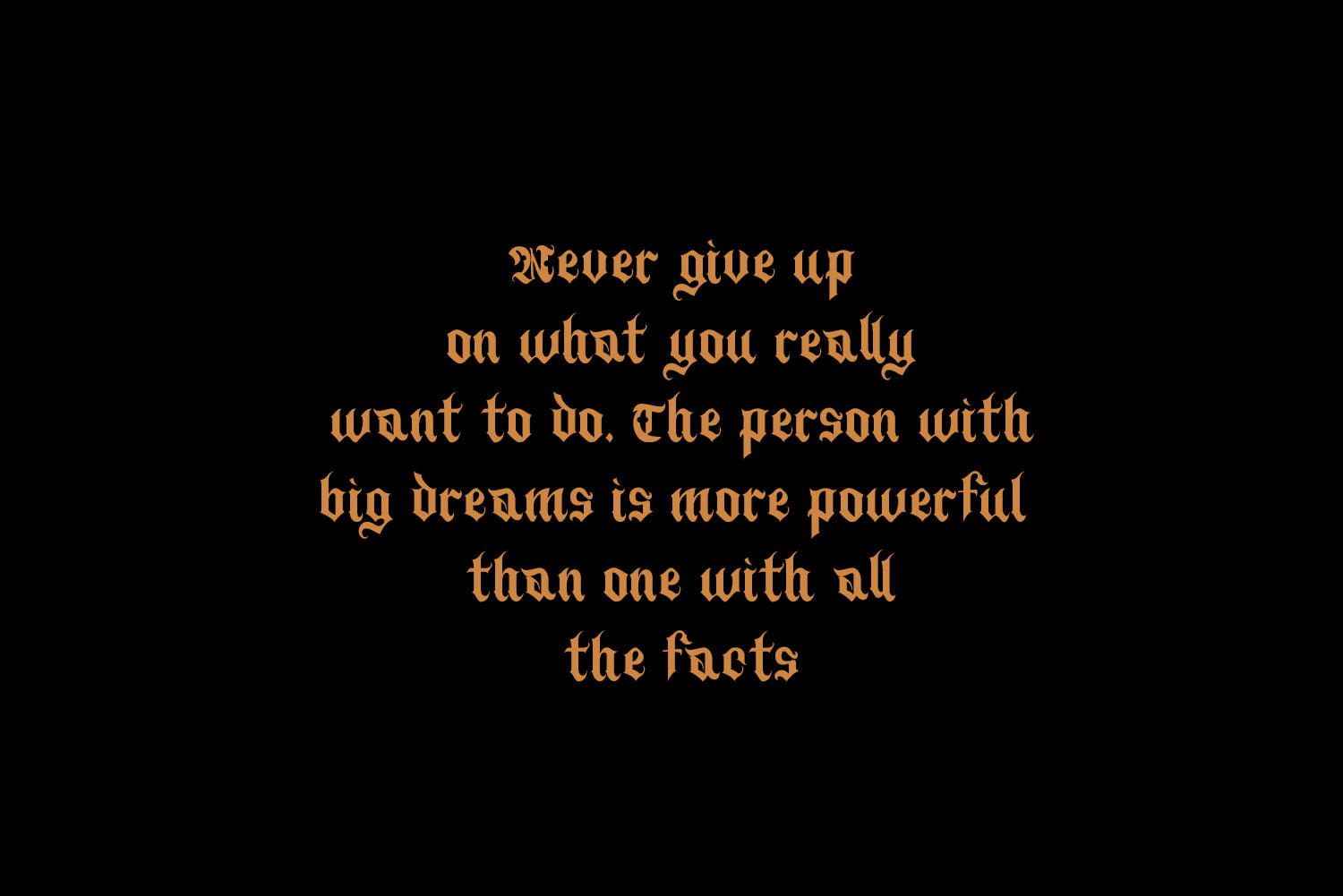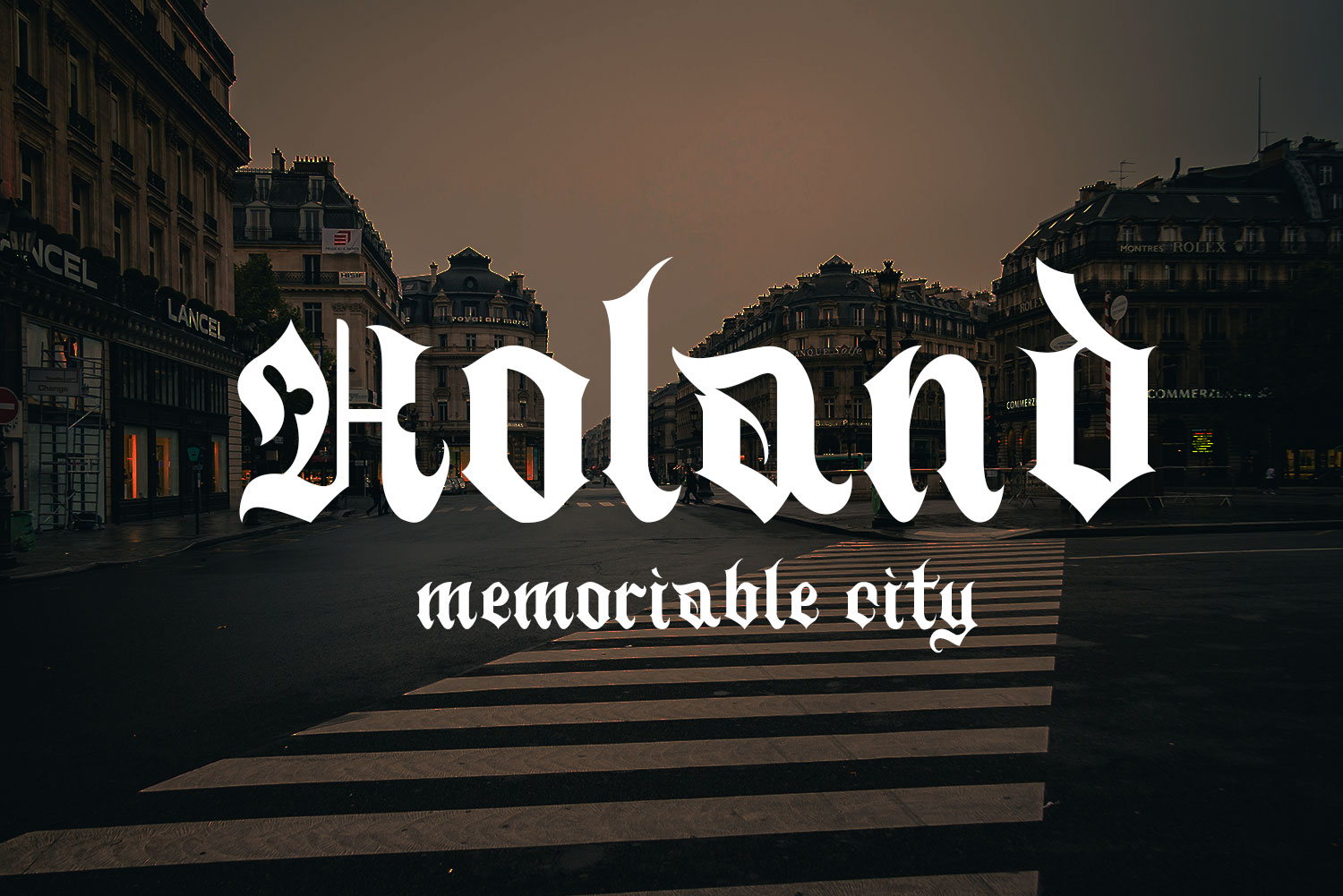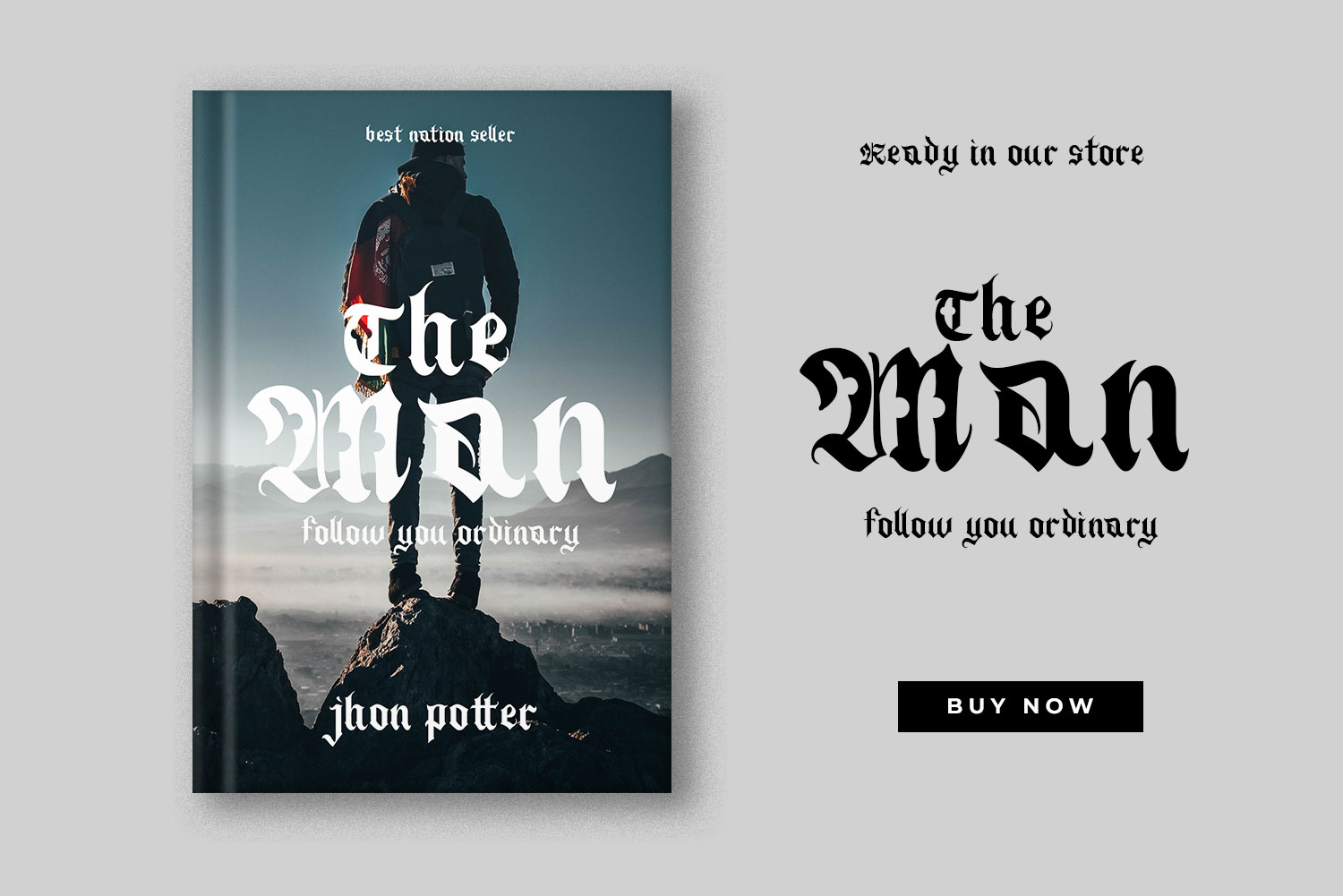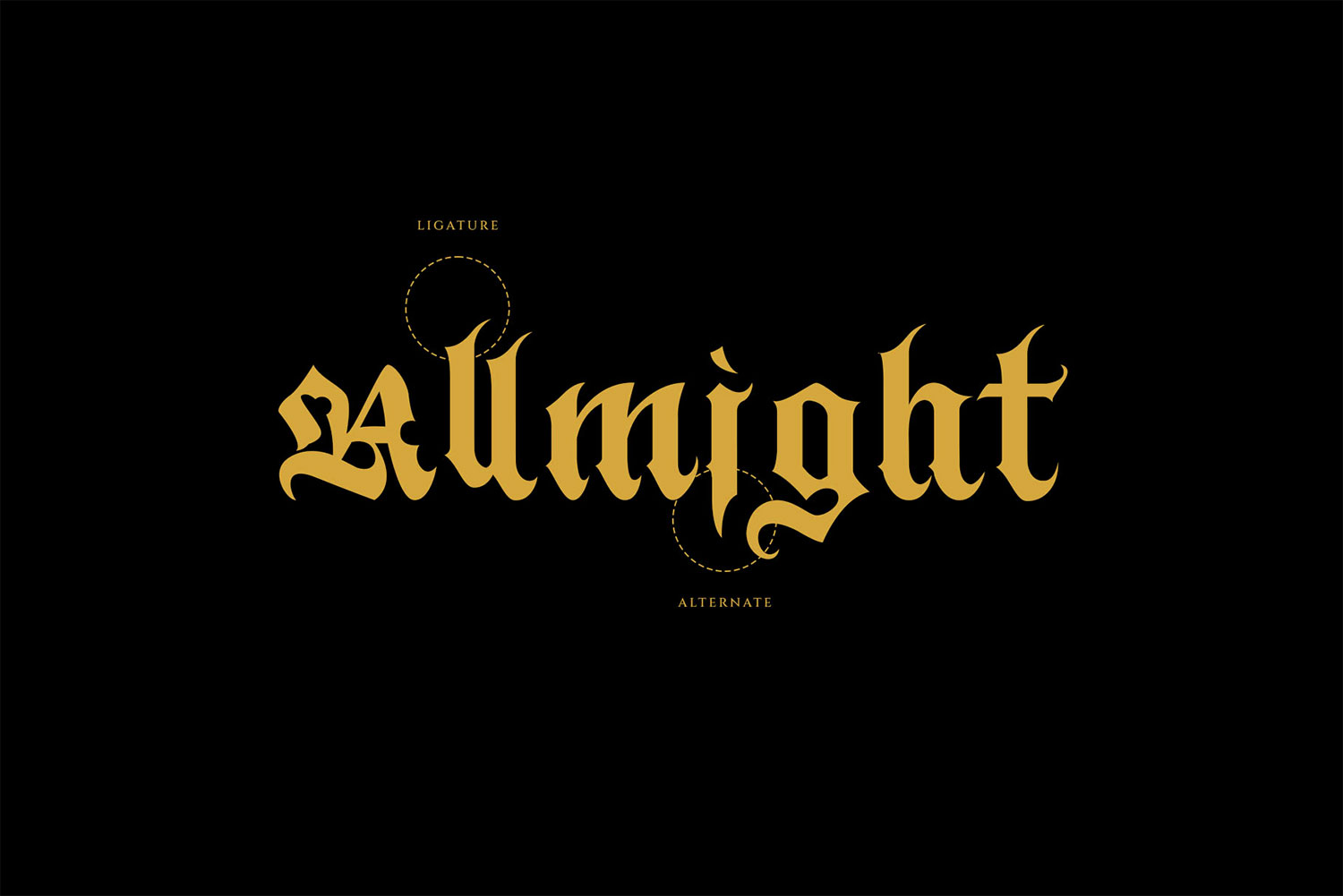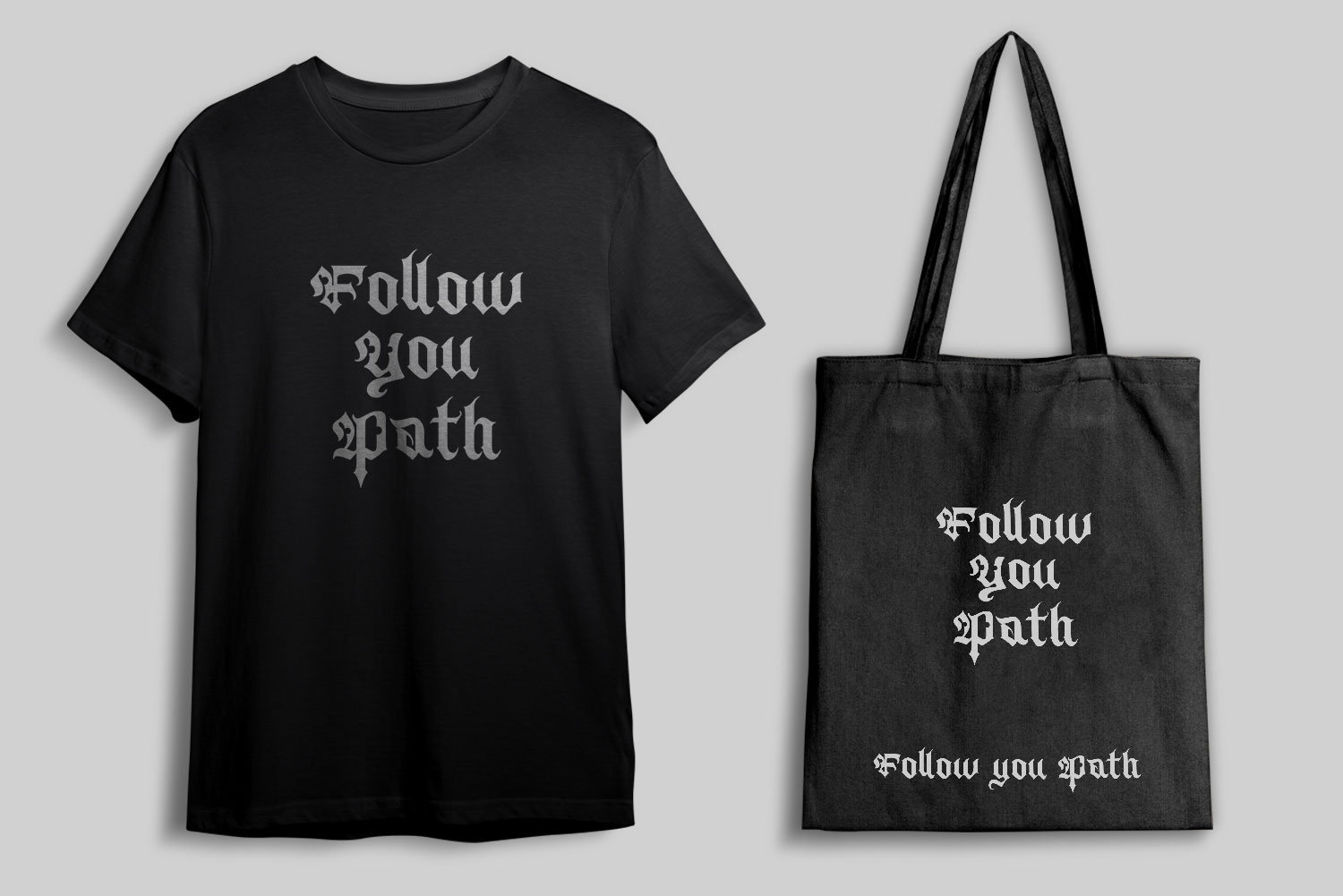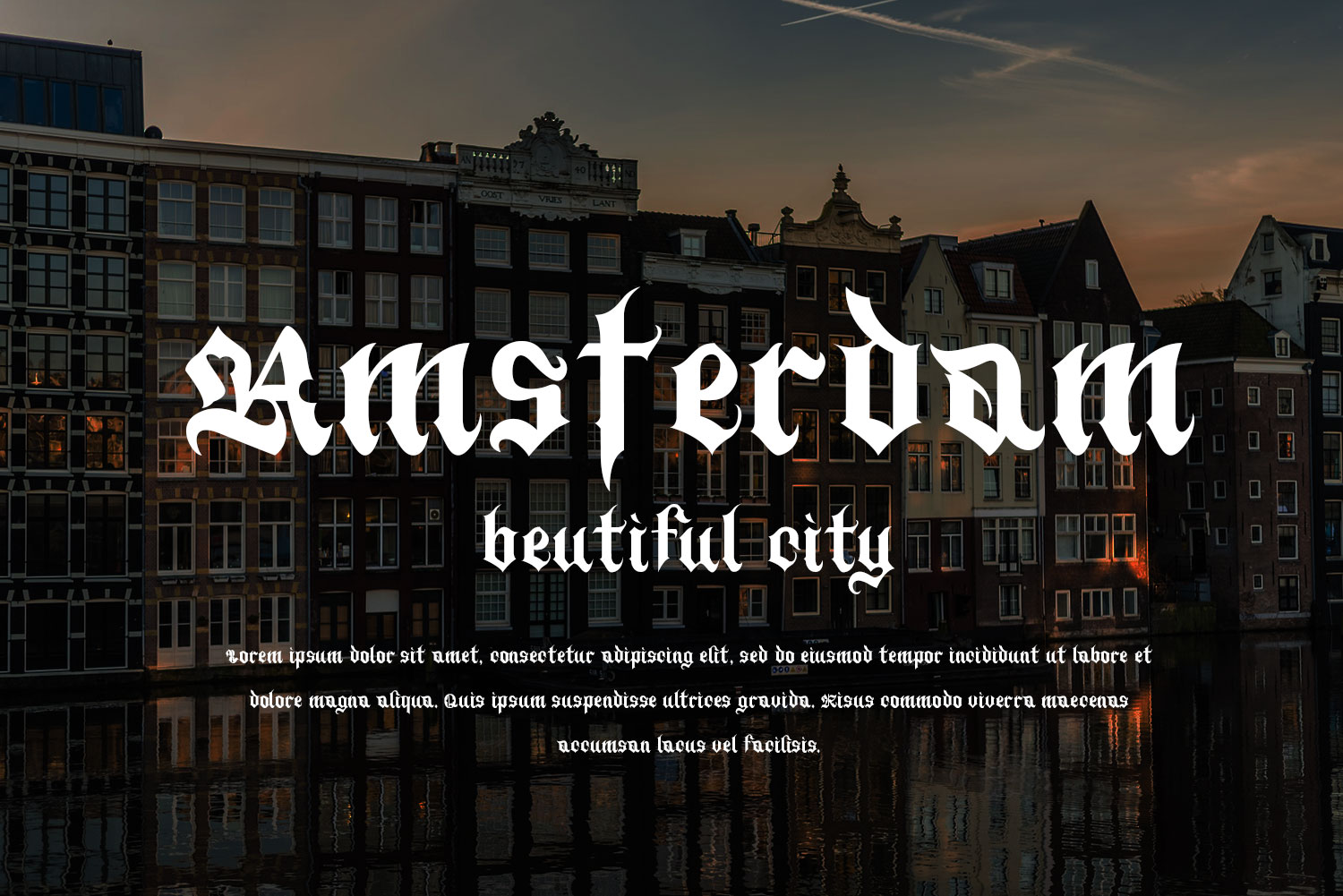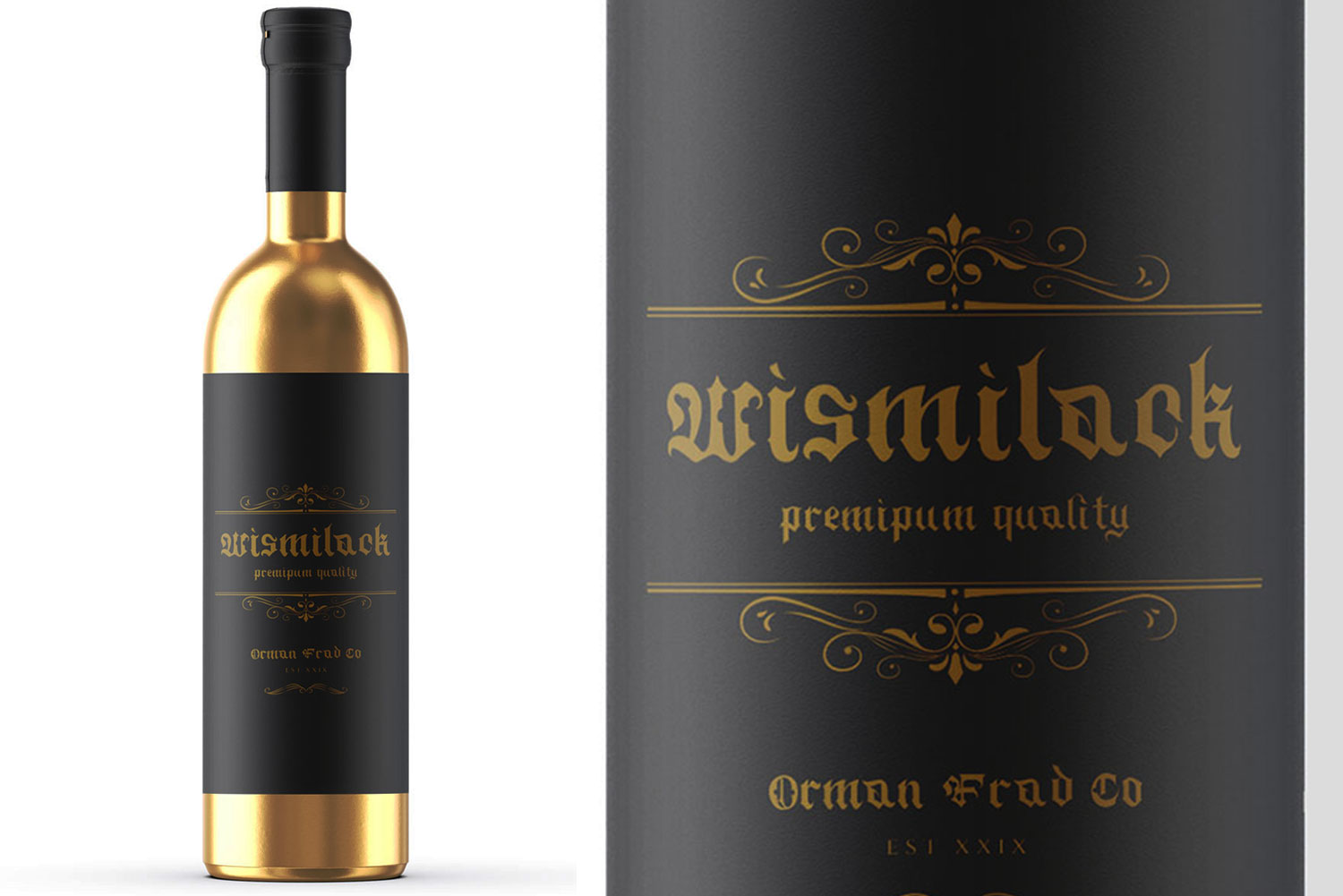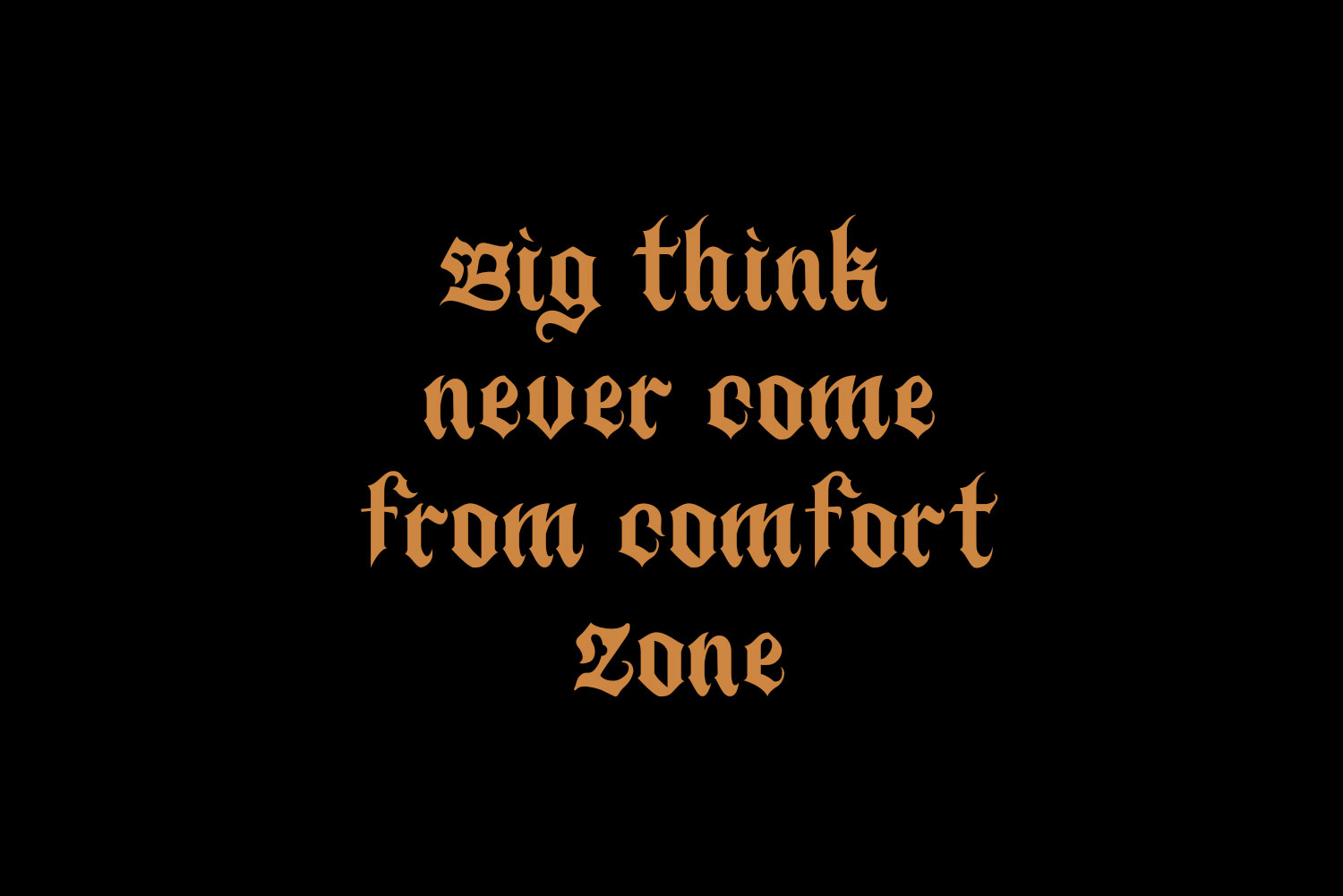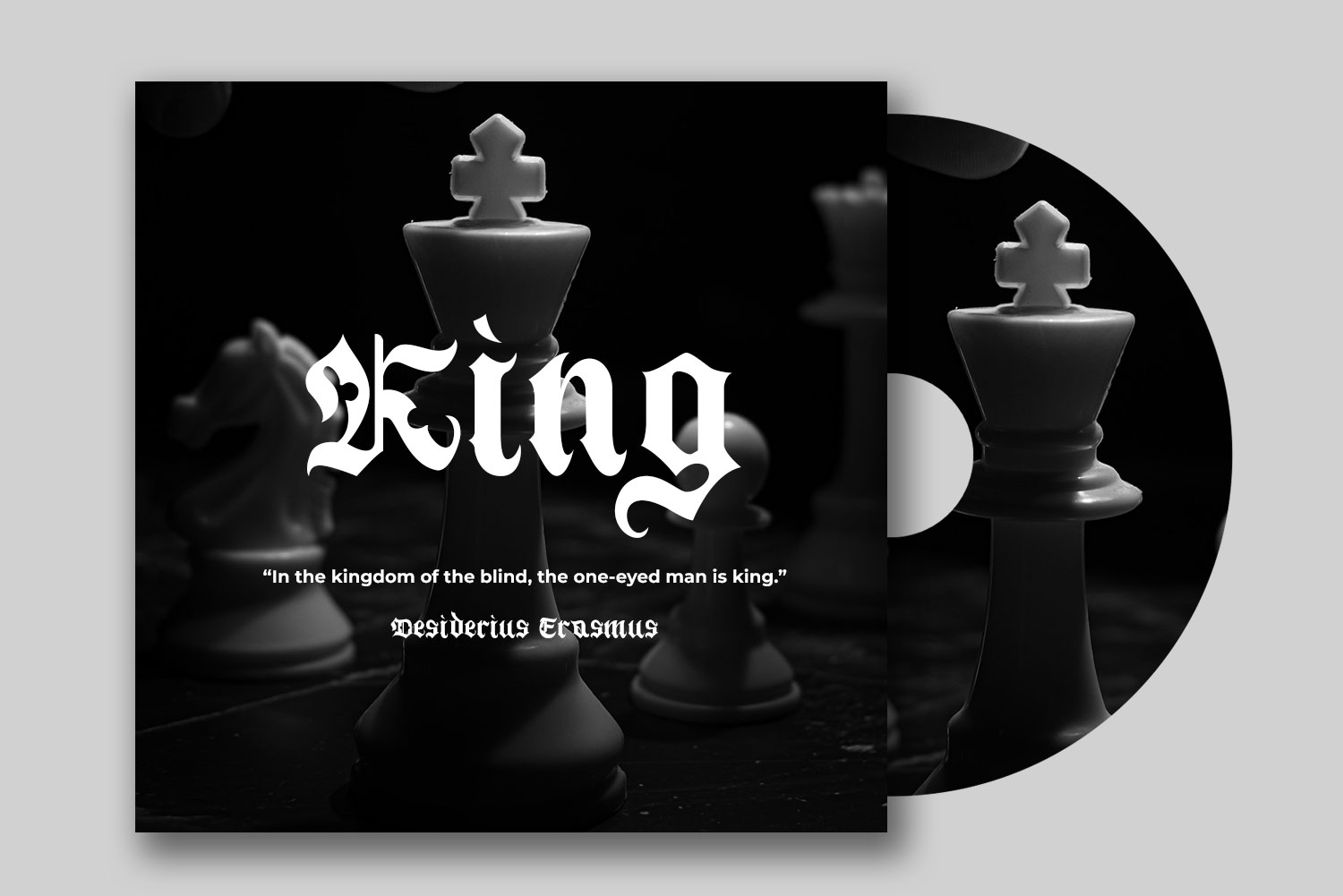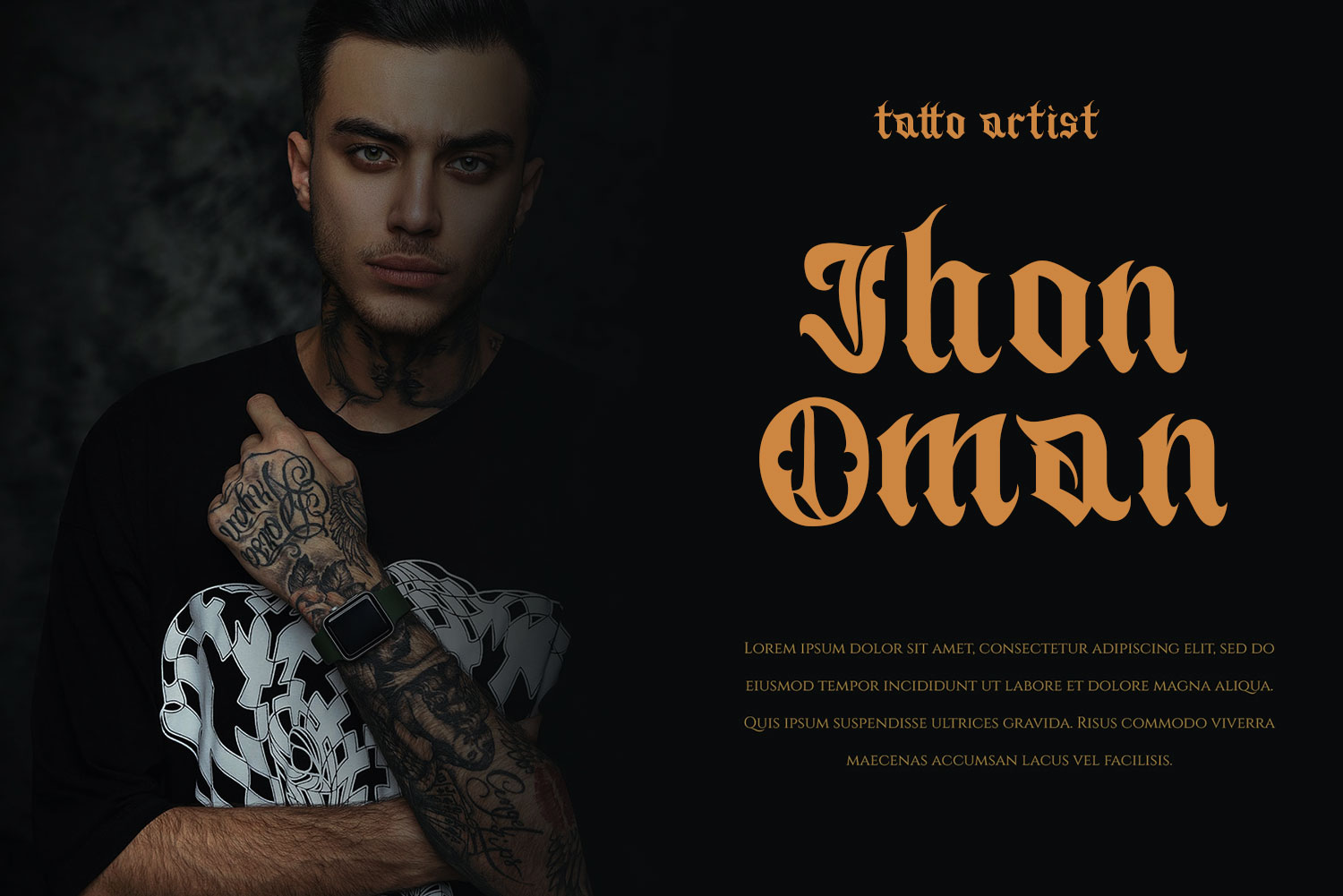
Black Record Blackletter Font
Proudly present “Black Record”, a medieval and fantasy inspired blackletter font. Black Record is a blackletter font full of medieval mysticism and age. An ideal choice for tattoo studios, band logos and album art, trendy fashion apparel, book covers, game design, packaging design and more. Historical and modern aesthetics are both easily achieved with this personality rich font.
Upper and lowercase letters are included, along with ligatures, more alternate, numerals and punctuation. (See preview image for the full character map.)